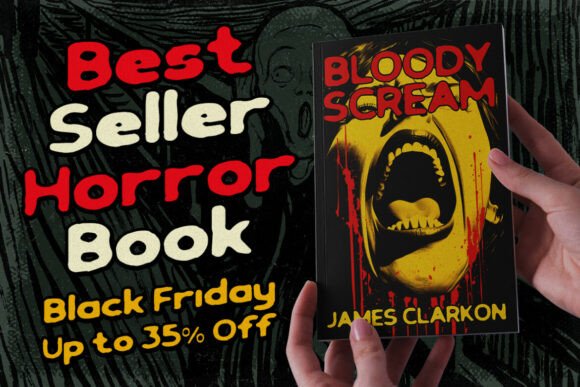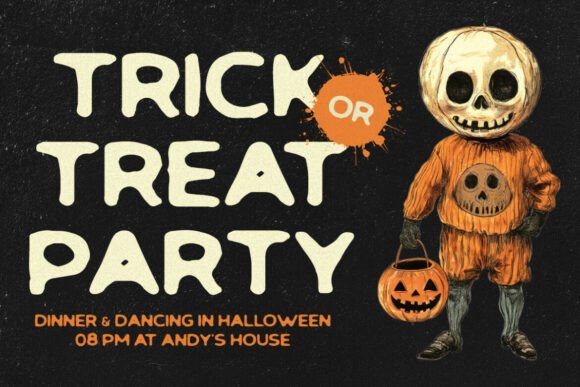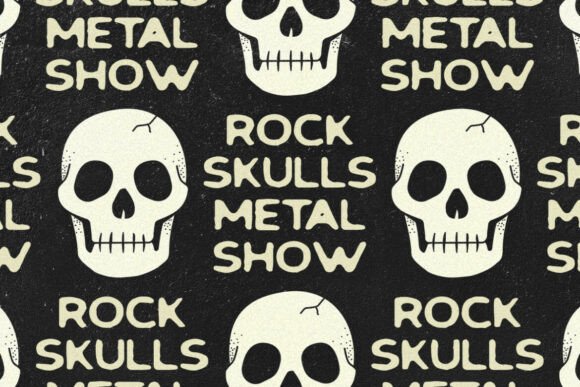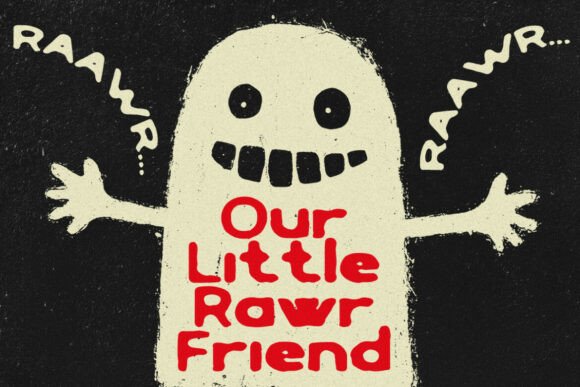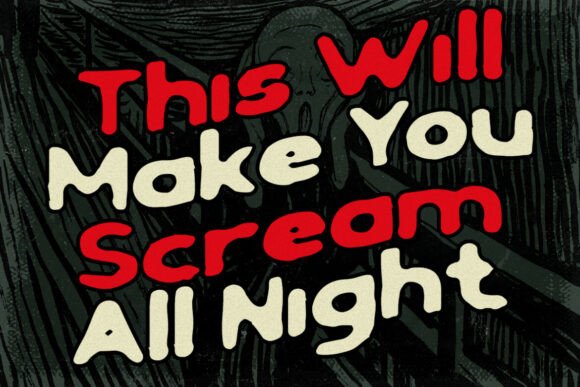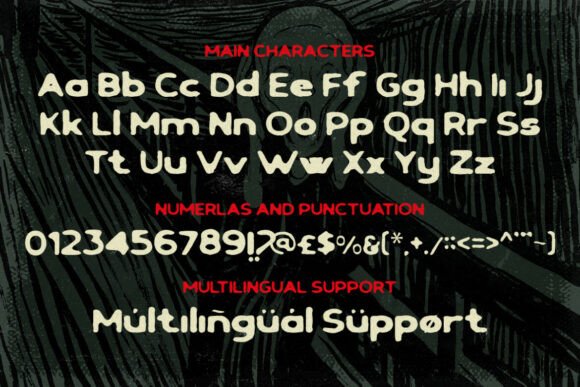
Unleash the Horror: Elevate Your Designs with Black Scream Font
Have you ever been brainstorming a design project, but the perfect font just evades you? You’re stuck with a blank slate, desperately searching for the perfect combination of style and atmosphere to bring your vision to life. This is where the Black Scream Font comes in – a hauntingly beautiful typeface that will transport your audience to a world of classic horror and suspense.
With its hand-drawn, uneven edges and bold strokes, the Black Scream Font is the perfect tool for designers looking to create spine-chilling visuals. Whether you’re working on a horror movie title, a spooky poster, or a Halloween-themed design, this font is sure to deliver a chilling atmosphere. As a valuable addition to any designer’s toolkit, the Black Scream Font is a must-have for anyone looking to elevate their dark-themed projects to the next level.
Key Features of Black Scream Font
- Font Family: Black Scream is a sans-serif font, specifically designed for bold and edgy typography.
- Unique Characteristics: Black Scream features a bold and aggressive design, with sharp edges and a dramatic flair, making it perfect for creating attention-grabbing headlines and titles.
Review of Black Scream Font
At first glance, Black Scream Font seems like a bold and edgy addition to any design project. It’s perfect for those who want to create a dramatic or even intimidating atmosphere. ✨ The font’s heavy lines and sharp edges make it ideal for use in posters, movie titles, or even video game branding.
However, I’ve noticed a few limitations that might be worth considering. ⚠️ Firstly, the font’s readability can be a bit of an issue, especially when used in large blocks of text. It’s not the best choice for articles or long passages. Additionally, the font’s inconsistent spacing can make it difficult to achieve proper alignment.
Here are some of the key things I’ve noticed:
- Works well for dramatic or edgy designs
- Perfect for use in posters, movie titles, or video game branding
- Heavy lines and sharp edges create a bold and intimidating atmosphere
- Readability can be a problem in large blocks of text
- Inconsistent spacing can make alignment difficult
Overall, I think Black Scream Font is a great addition to any designer’s toolkit, but it’s not a one-size-fits-all solution. Use it sparingly and in the right context, and it can really make your design pop. But if you’re looking for a font for everyday use, you might want to consider something a bit more versatile.
The Black Scream Font is a bold, eye-catching font that is perfect for creating attention-grabbing headlines and titles.
Some common use cases for the Black Scream Font include:
- Banners and advertisements
- Social media graphics
- Posters and flyers
Remember to use the Black Scream Font sparingly, as its boldness can be overwhelming if used too much.